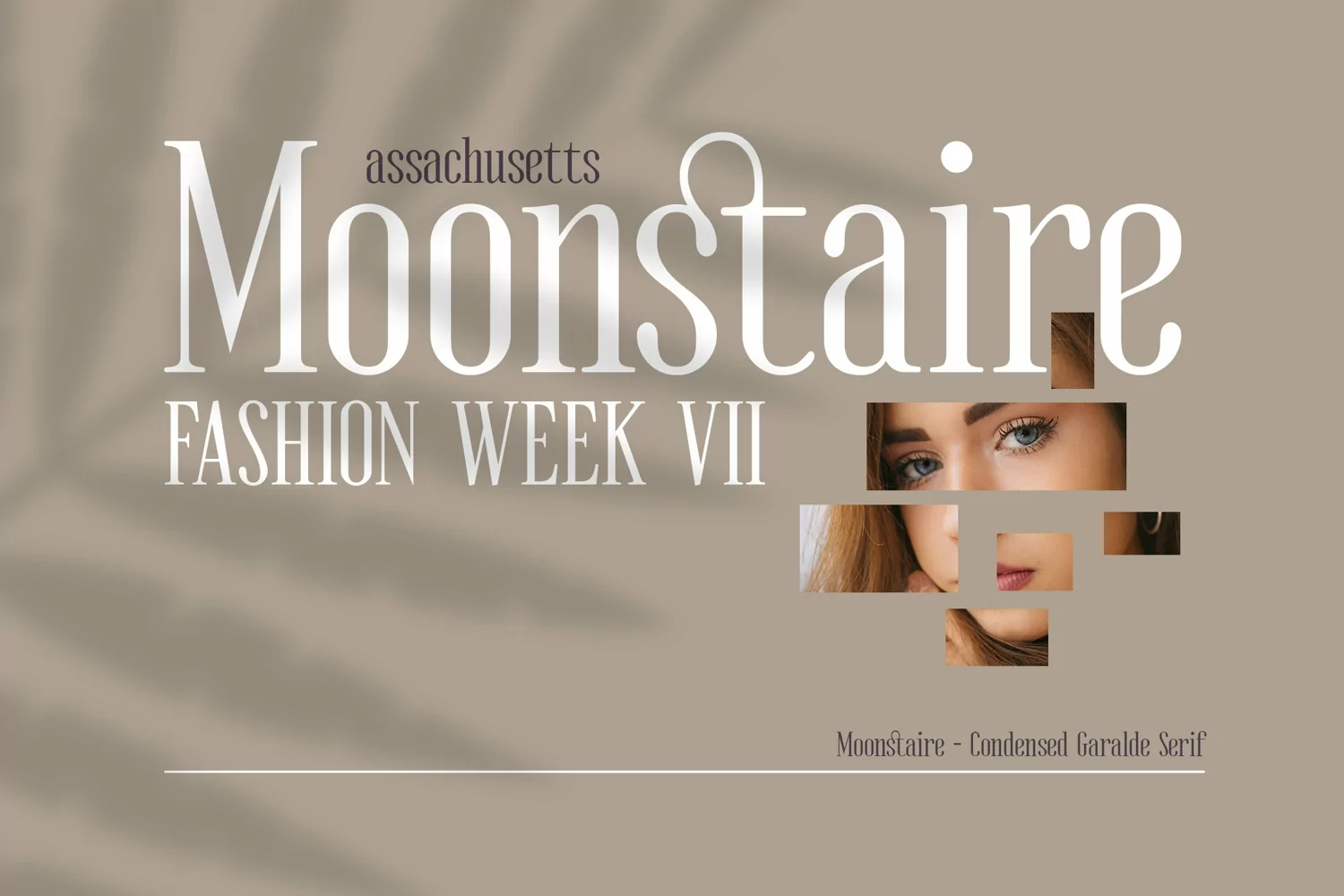
Moonstaire is an Elegant Classy Condensed Serif
Moonstaire Serif font is perfect for your up coming projects. Such as luxury logo branding, editorial design, stationery design, Elegant Modern Fashion, Salon Beauty, feminine advertising design, blog / website design, card invitation, art quote, home decor, book/cover title, special events ( wedding, birthday, etc ), and any more.
Moonstaire